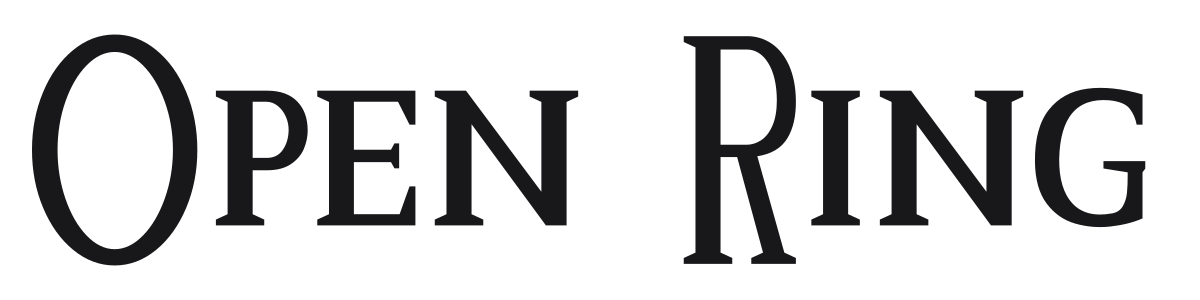
Open Ring
Open Ring is a copyright-free serif designed as an open alternative to the Ringbearer font, evoking the grand inscriptional lettering of Tolkien's world. It carries the high-contrast strokes and classical proportions of a Roman titling face, filtered through a fantasy lens. Strong at large sizes for film titles, book covers, and game branding.